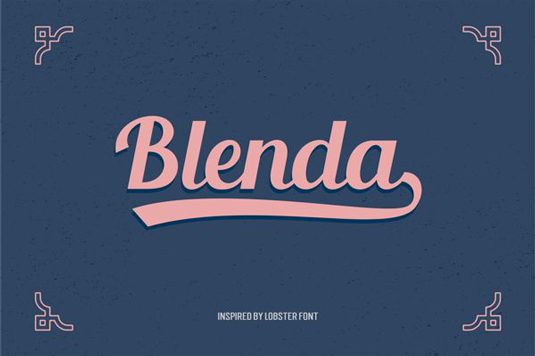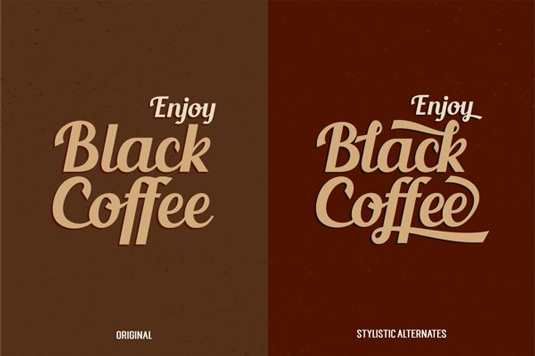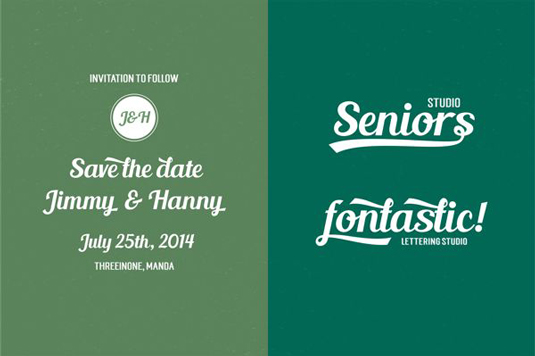
Font of the day: Blenda Script
Every day we showcase the best fonts on the web. Today it's Blenda Script from Seniors Studios, which is free for both personal and commercial use.
Blenda Script from Seniors Studios
Blenda Script is a free experimental font from independent graphic design studio Seniors Studio. A bold, vintage script font, Blenda Script would be suitable for various purposes, including news, posters, logos and more.